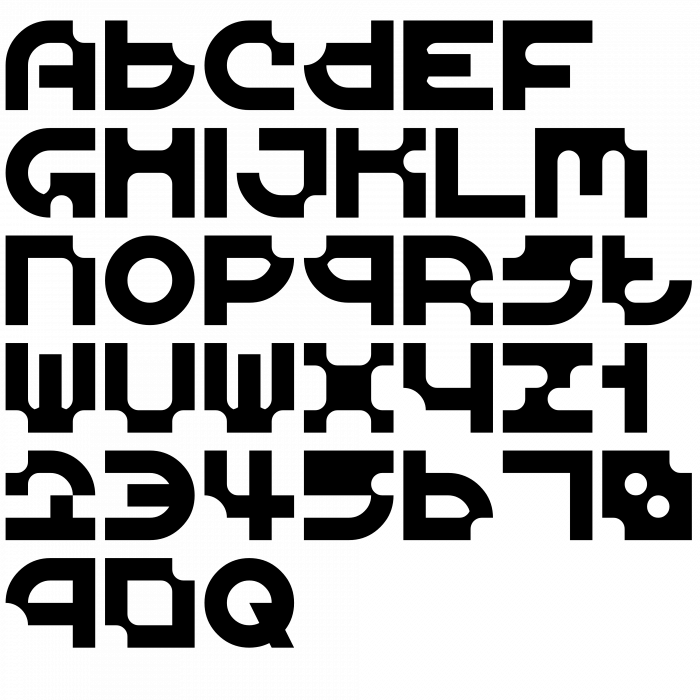
• and yes i took inspiration from that one reddit user
10/2/2021: Block As Asterisk
7/12/2022: Brought Back An Old Friend Known As:  Þ
7/11/2023: Added Cyrillic (don't judge me if some glyphs look identical to another.)
7/12/2023: Added More Cyrillic
7/14/2023: Added A Bit Of Cyrillic And 1 Change To De's Glyph. (old glyph in lowercase)
3/1/2024: Added BUGJUMP B, U, p. Old B In 'Small B With Stroke' Or Cyrillic Lowercase Be.
3/23/2024: Added Creeper Face on {
4/26/2024: Added Double Thorn (ꟓ) and Double Wynn (ꟕ)